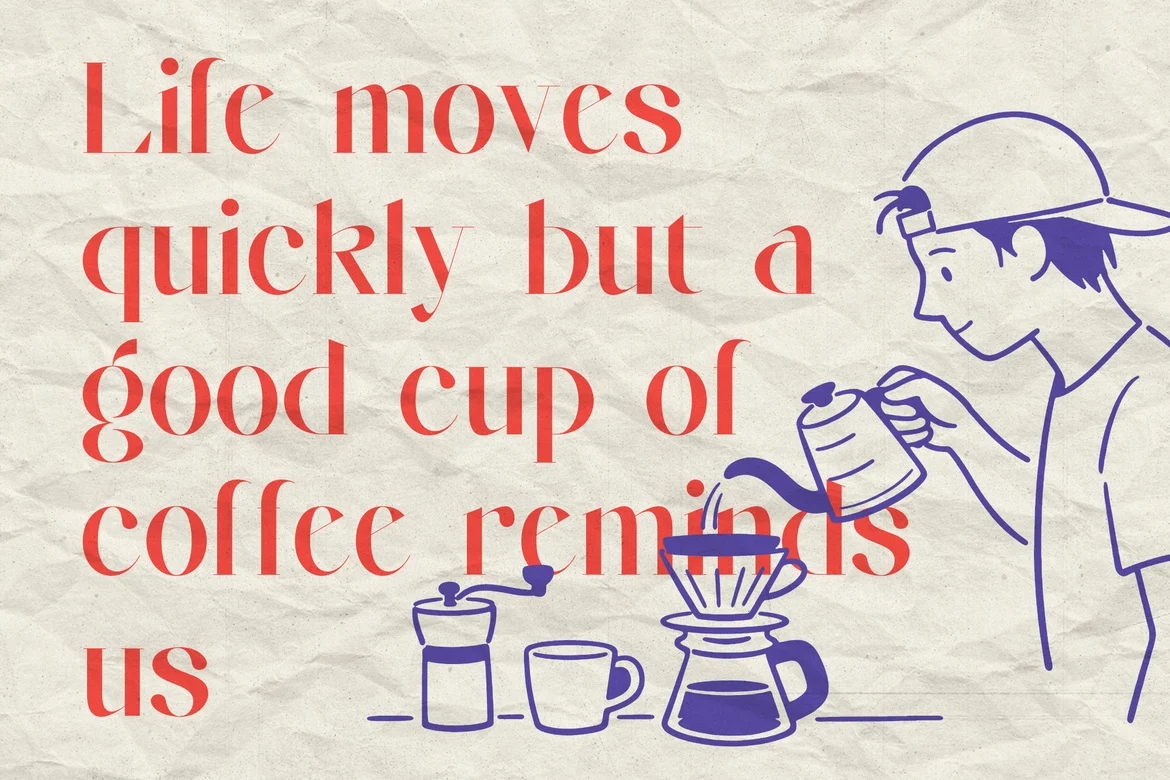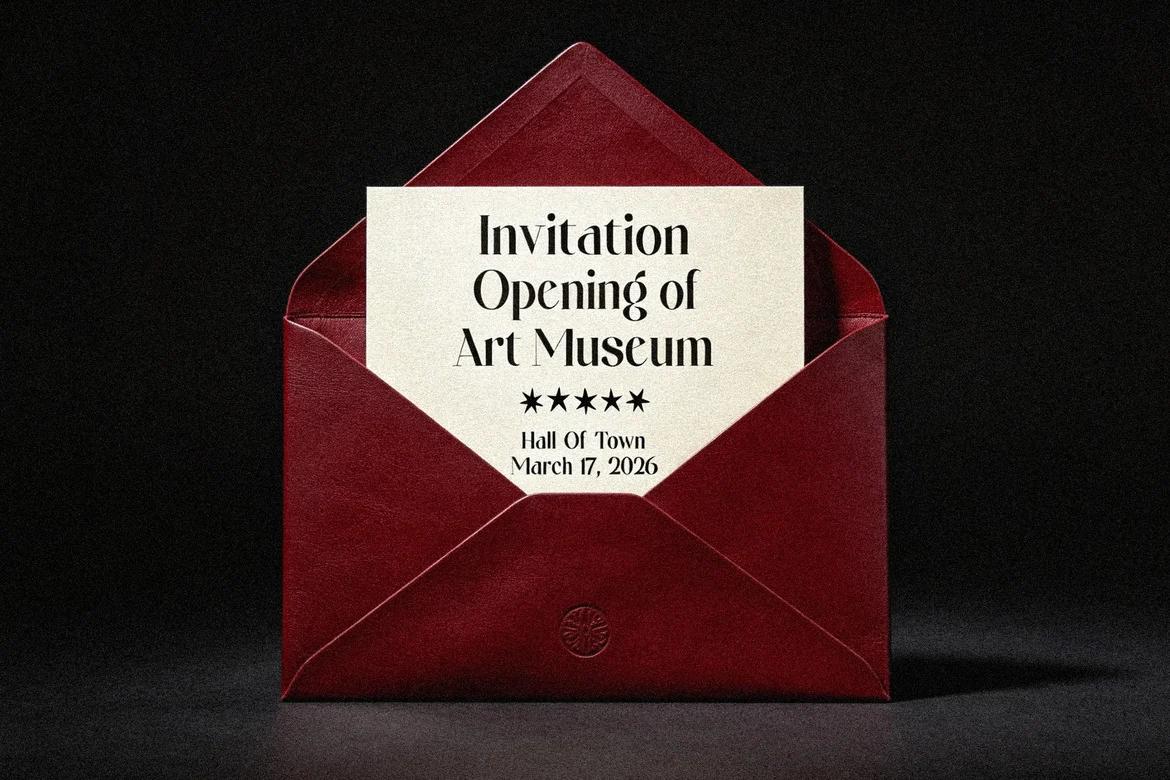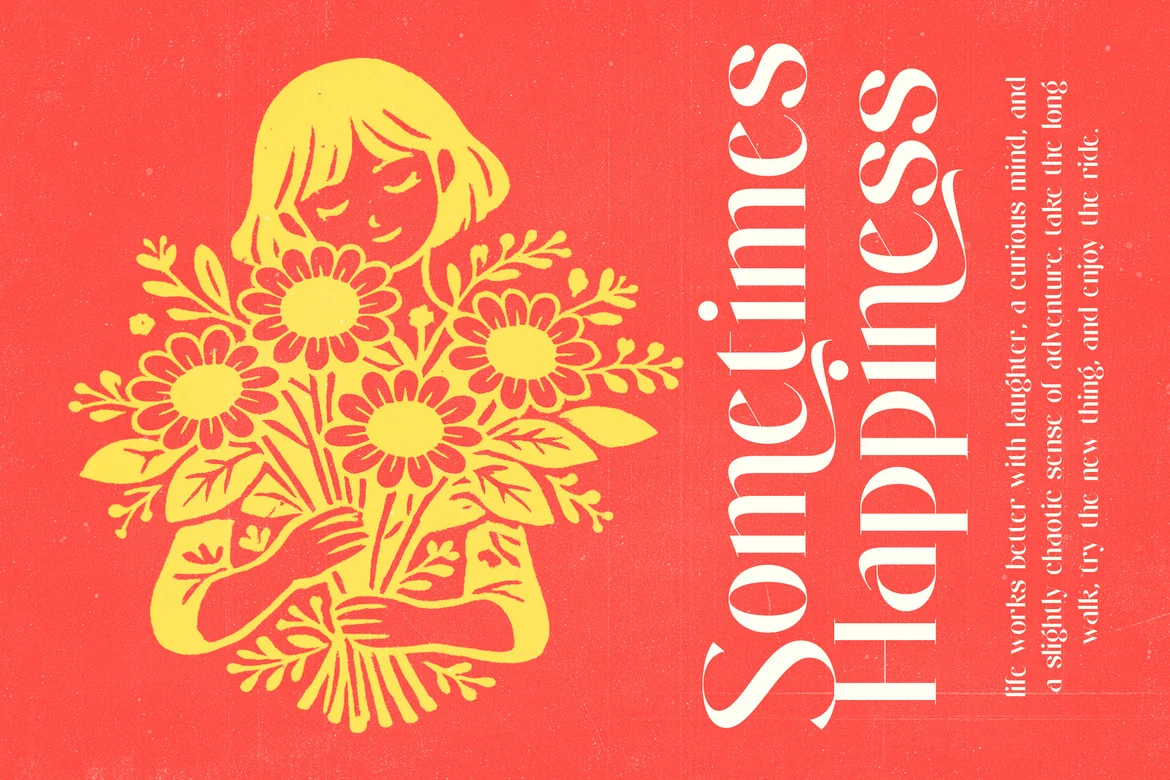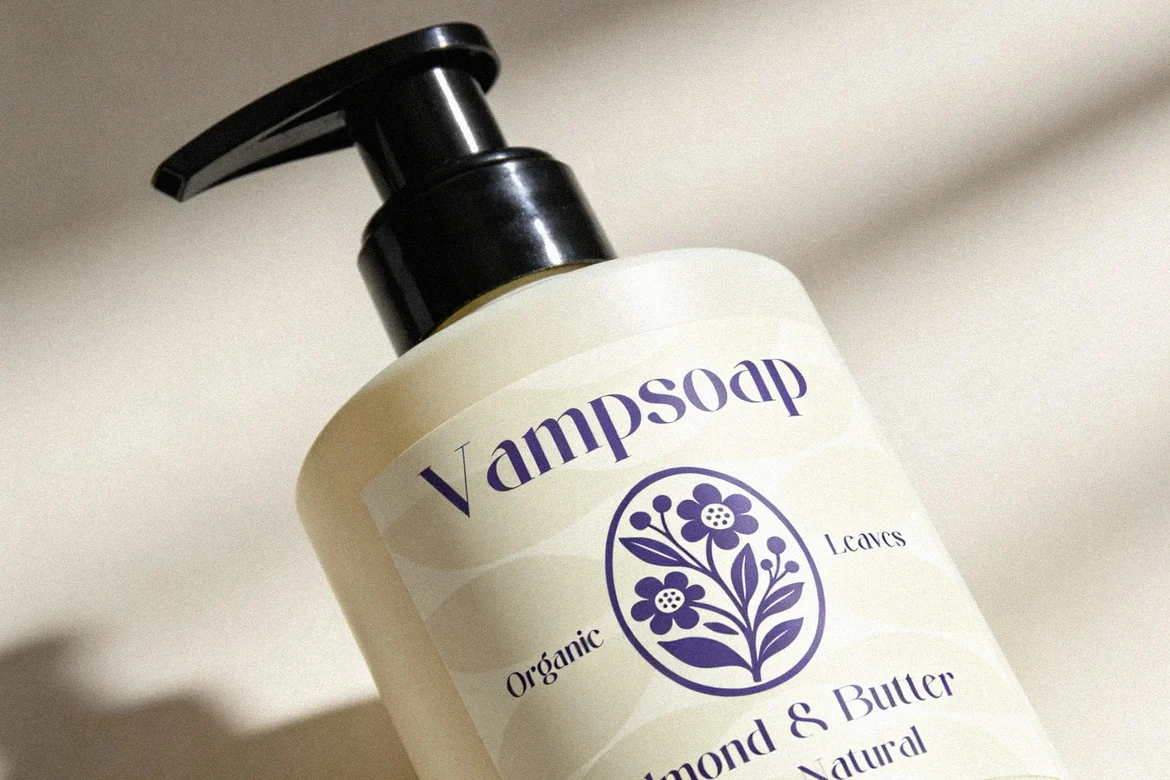
Higgant – Elegant Modern Serif Display Font
Higgant is an elegant modern serif display font crafted with graceful curves and refined high-contrast details. Combining contemporary sophistication with timeless serif aesthetics, Higgant is perfect for luxury branding, cosmetic packaging, wedding invitations, restaurant menus, and premium logo design.
Its distinctive letterforms and stylish alternates create visually striking typography that feels elegant, artistic, and memorable across both print and digital projects.
- Elegant modern serif style
- Stylish ligatures & alternates
- Uppercase & lowercase characters
- Luxury typography aesthetic
- High contrast display design
- Ideal for logos & packaging